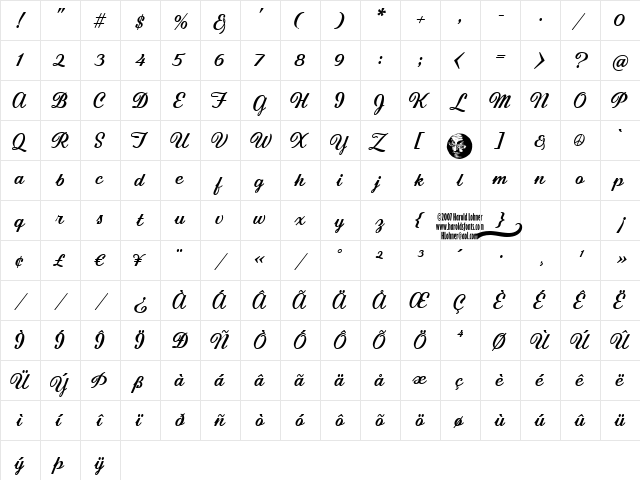
New England Regular
| Copyright | NEW ENGLAND computer font v1.0 07 Harold Lohner "  "https://www.haroldsfonts.com Inspired by the handlettered titles of the film "The Devil and Daniel Webster" (1941) |
Design Context for New England Typeface
New England is a composed and adaptable typeface that performs quietly and consistently across a wide range of design contexts.